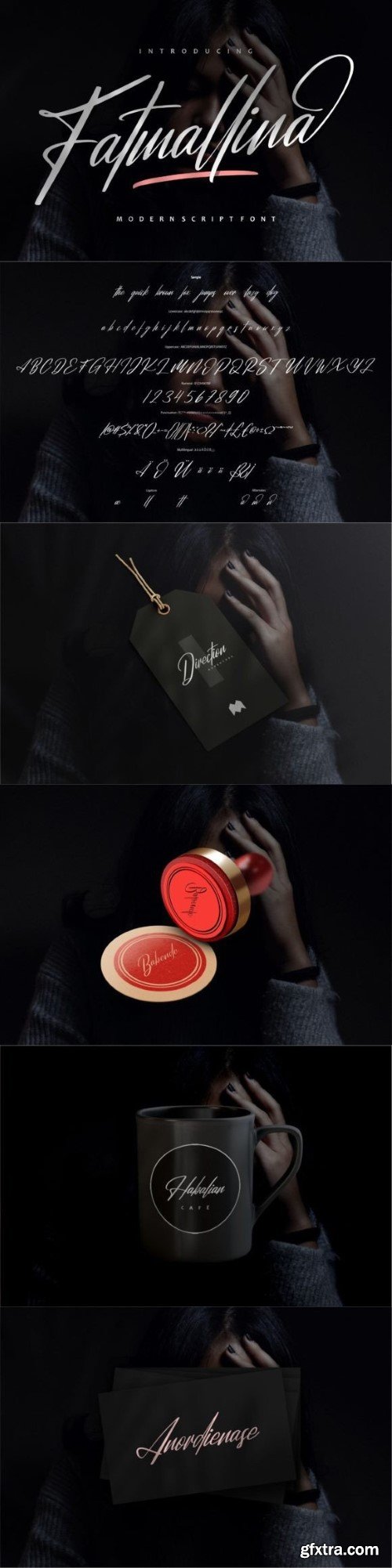
Fatmallina is a modern script font that effortlessly combines style with simplicity. With its sleek and contemporary design, it adds a touch of sophistication to your projects. Perfect for a variety of applications, from invitations to branding, Fatmallina brings a fresh and trendy vibe to your text. Upgrade your design with this versatile and stylish script font for a modern and eye-catching look.